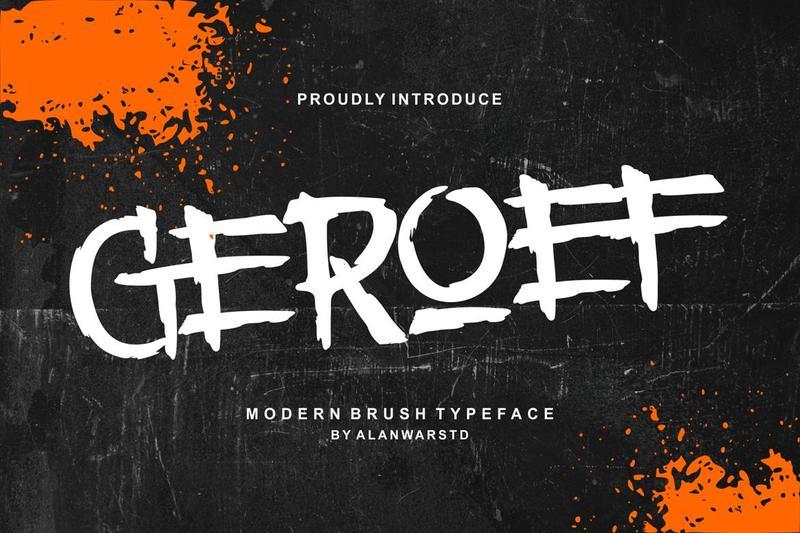
Geroef – Modern Brush Typeface ERKA5JU
Introducing our new product **Geroef** – Modern Brush Typeface
**Geroef** – Modern Brush Typeface is a regular and authentic display font. The font is suitable for any branding project like logo, esport, and many more. outstanding in a wide range of contexts.